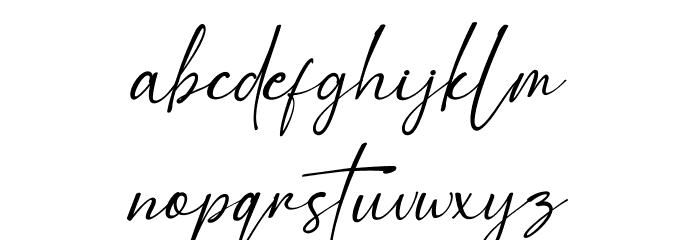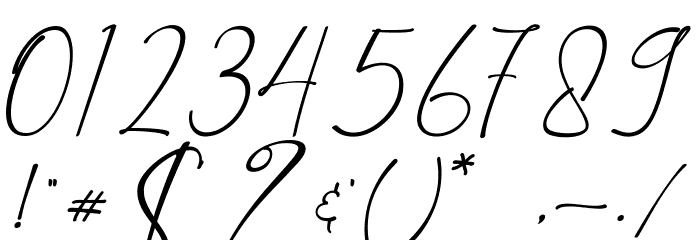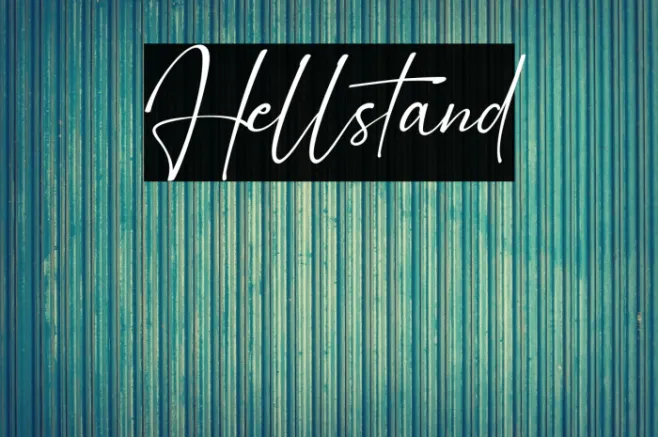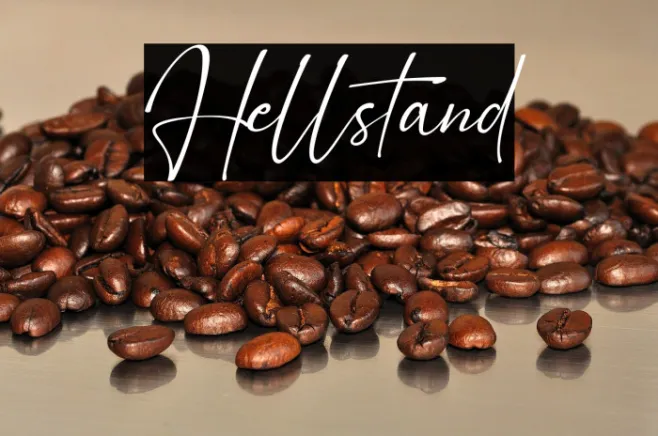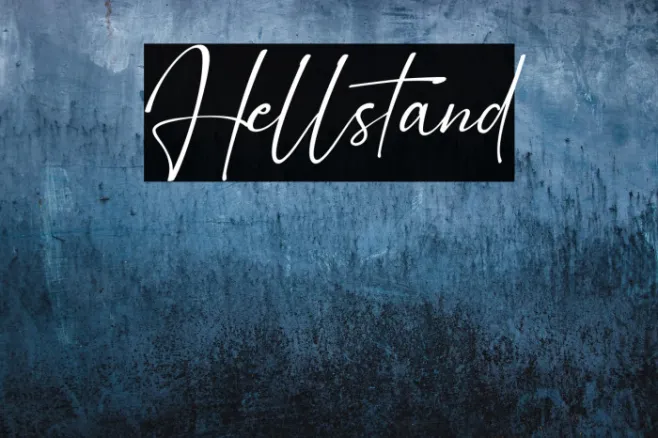
Hellstand Font
This font exhibits a modern and elegant handwritten style, characterized by its fluid and graceful strokes. The uppercase letters are tall and slightly slanted, giving a sense of movement and dynamism. The lowercase letters maintain a consistent flow, with some characters featuring distinctive loops and curves that enhance its handwritten appeal. The numerals are clear and legible, matching the overall aesthetic with their slightly elongated forms. Special characters are thoughtfully designed to complement the alphabet, ensuring a cohesive look across all text. This font's unique style makes it suitable for creative and expressive projects.
A modern, elegant handwritten font with fluid strokes and dynamic slant.
- Font: Hellstand
- Proposed Projects: Ideal for wedding invitations, greeting cards, branding, and social media graphics.
- Use Case: Logos, Headlines, Invitations